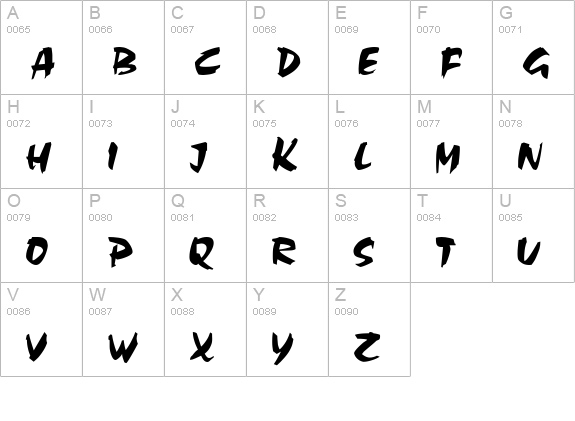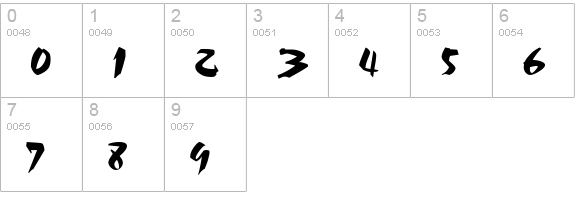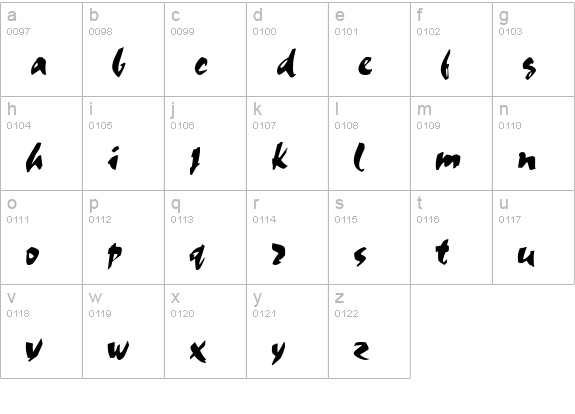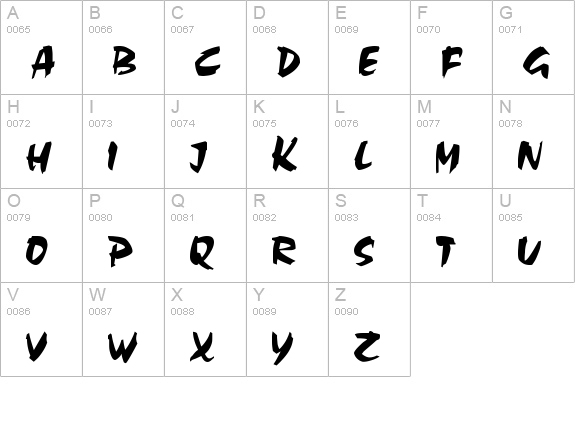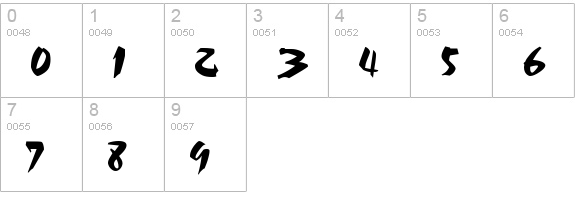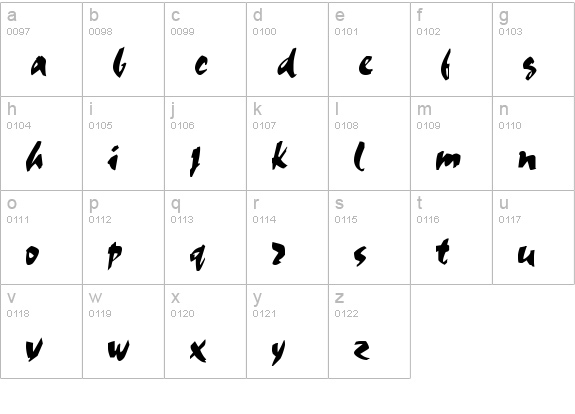
Olivia Brush Font Details
The Olivia Brush font is a stunning display typeface that exudes elegance and sophistication. Its flowing brush strokes create a sense of movement and grace, making it perfect for adding a touch of style to any design project. With its unique blend of modernity and classic charm, Olivia Brush is sure to captivate and inspire. What's even better is that Olivia Brush is available for free download at FontsMarket.com. This means you can easily access this beautiful font and incorporate it into your creative endeavors without any cost. Whether you're designing a wedding invitation, a logo, or a social media graphic, Olivia Brush is a versatile and eye-catching choice that will elevate your work to new heights. Download Olivia Brush today and unleash your creativity with this exceptional typeface.